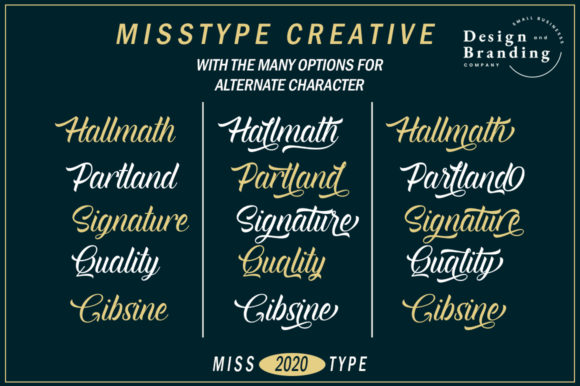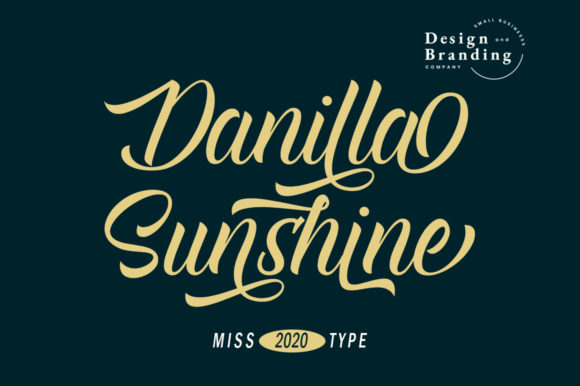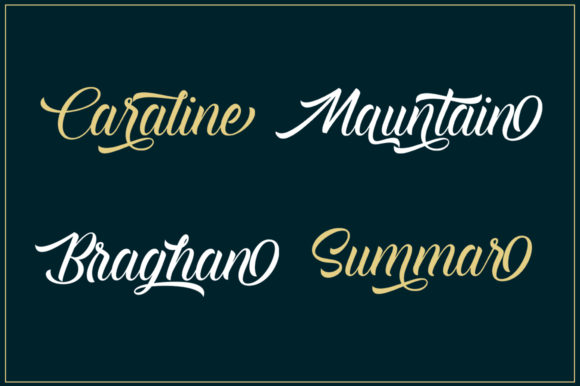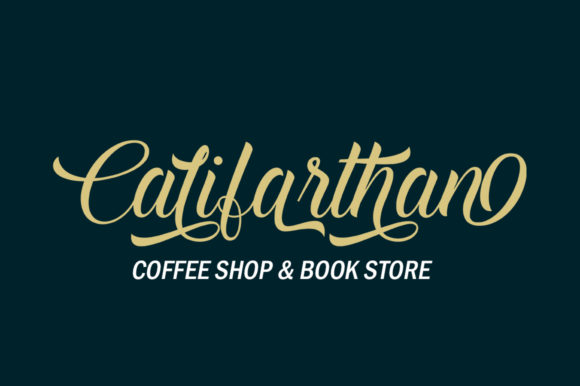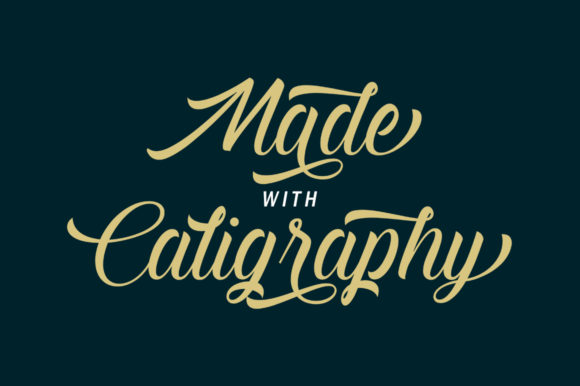
Braghan Font
About Braghan Font
Braghan is a classic and decorative script font with a modern touch. It has a royal and glamorous feel which will add an elegant and luxurious touch to your designs.